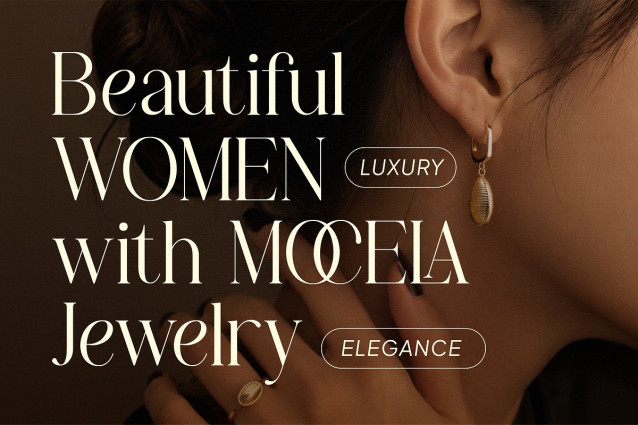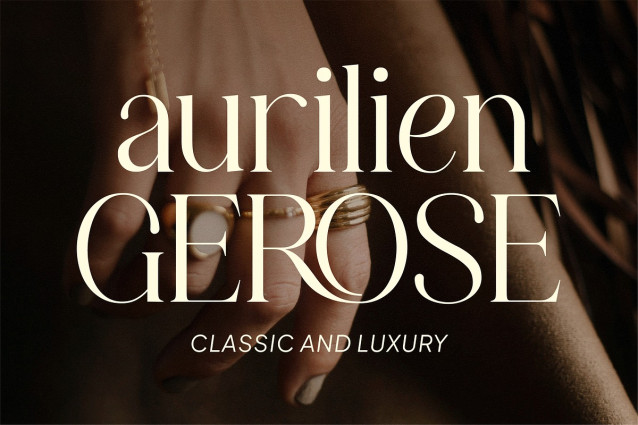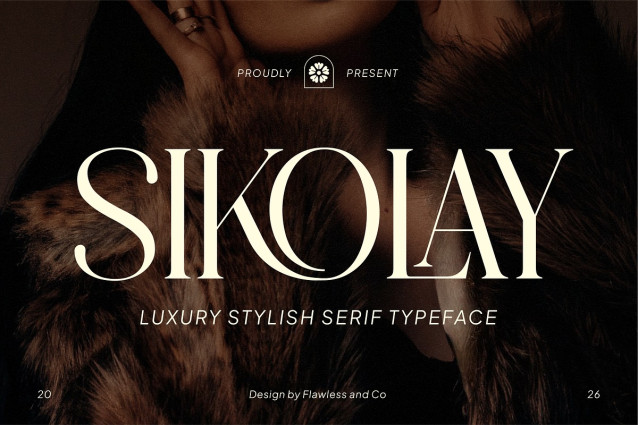
Sikolay – Elegant Luxury Serif Font
Sikolay is a refined luxury serif font that captures the essence of modern elegance and timeless sophistication. Designed with graceful serif details, striking high-contrast strokes, and beautifully sculpted letterforms, Sikolay delivers a distinguished visual identity that feels both premium and effortlessly stylish. Every character is carefully crafted to create a harmonious balance between classic typography and contemporary luxury.